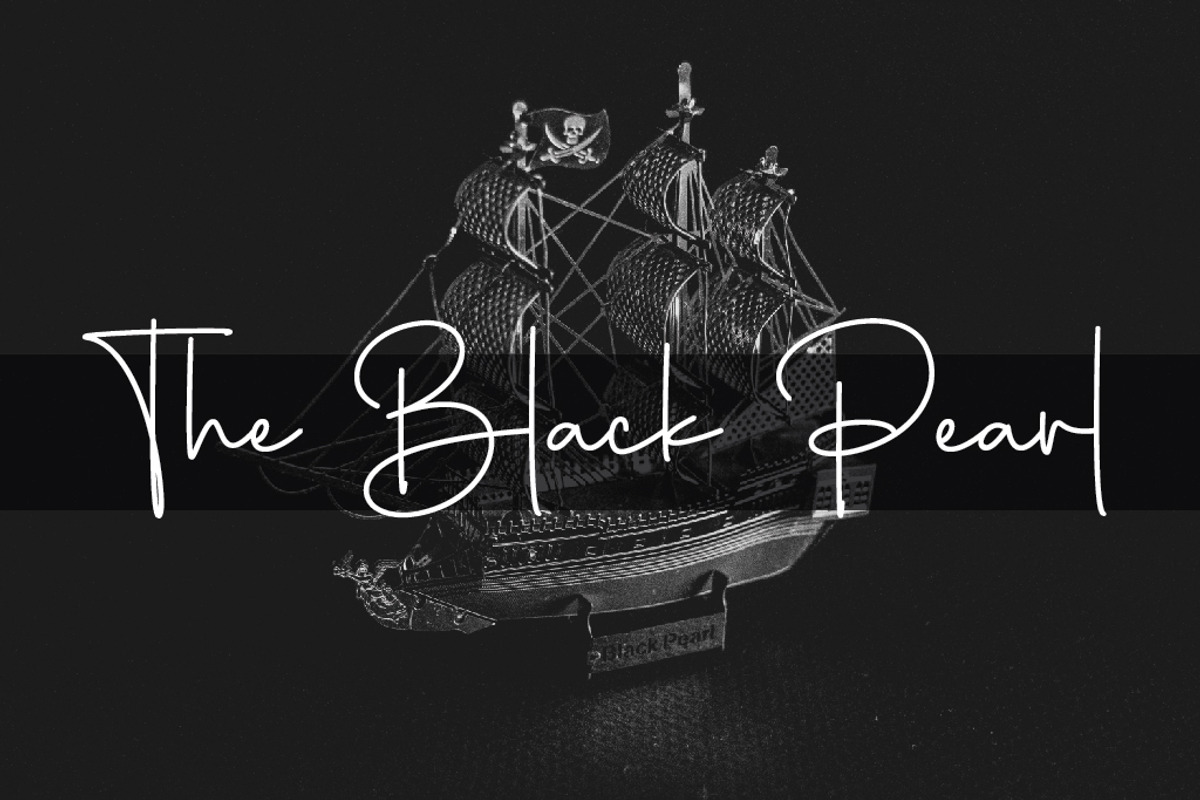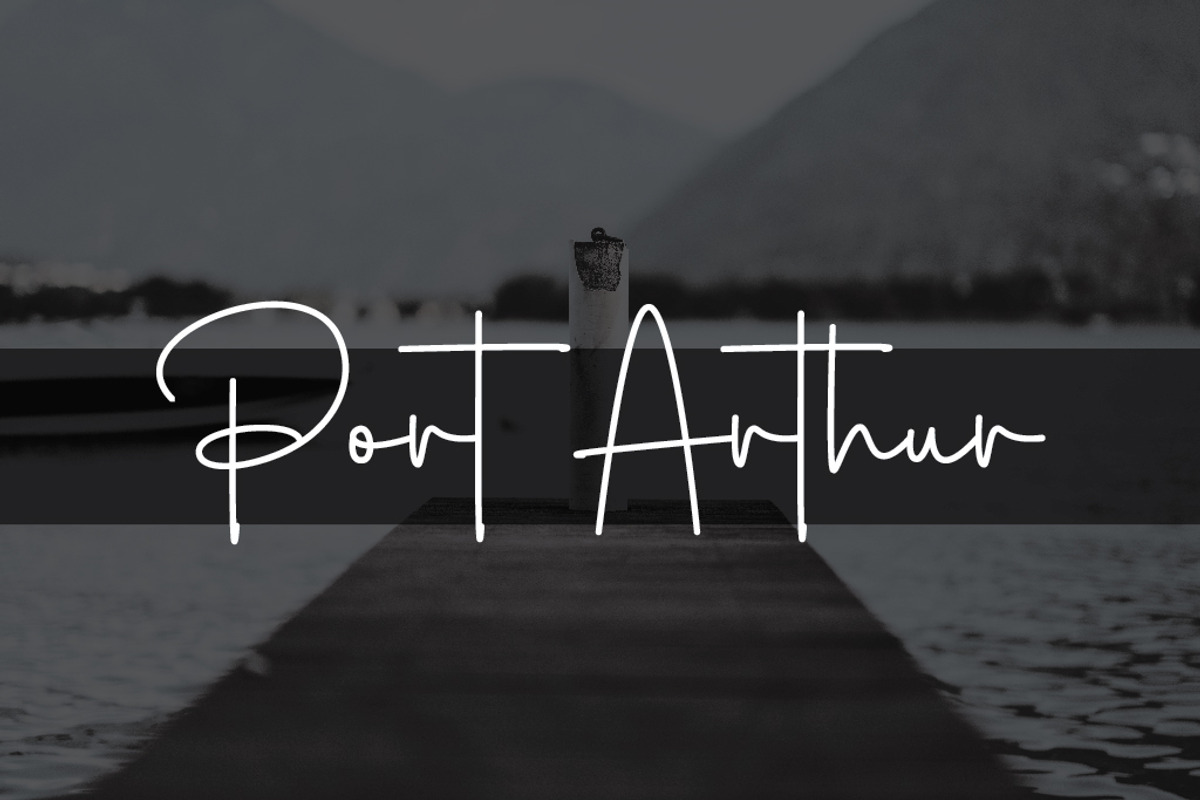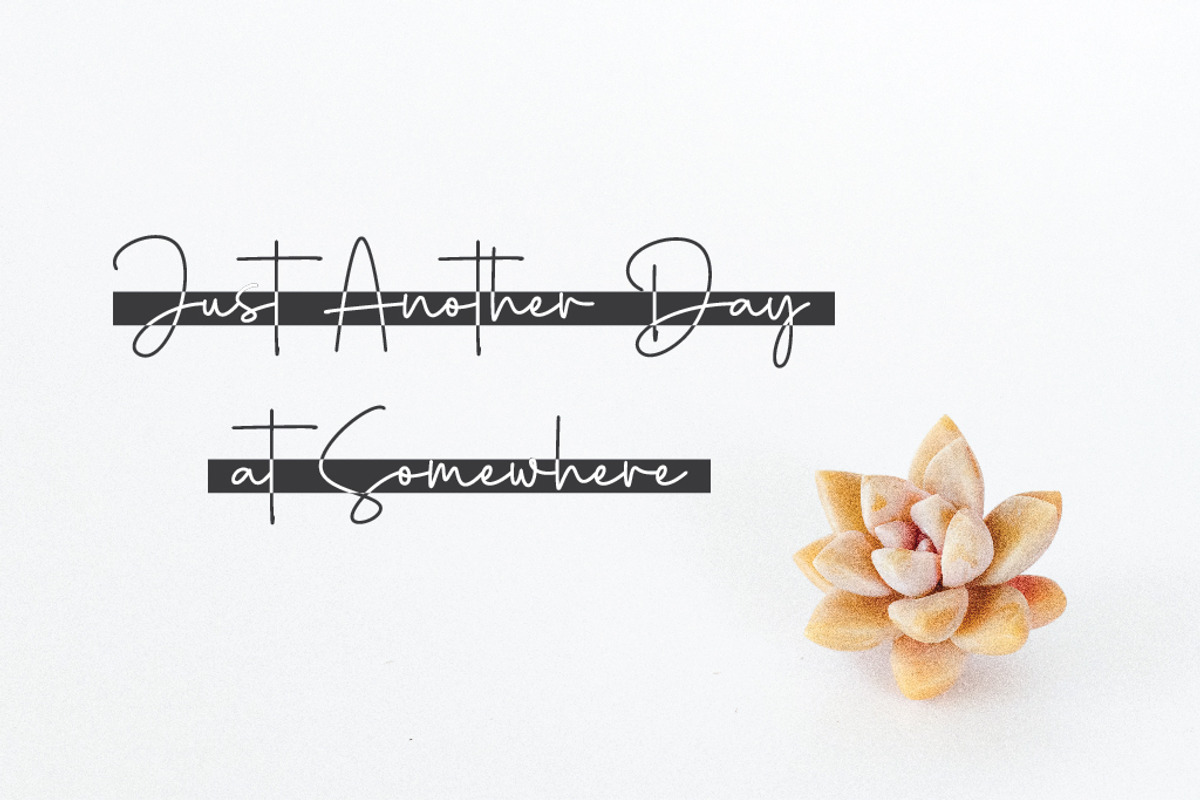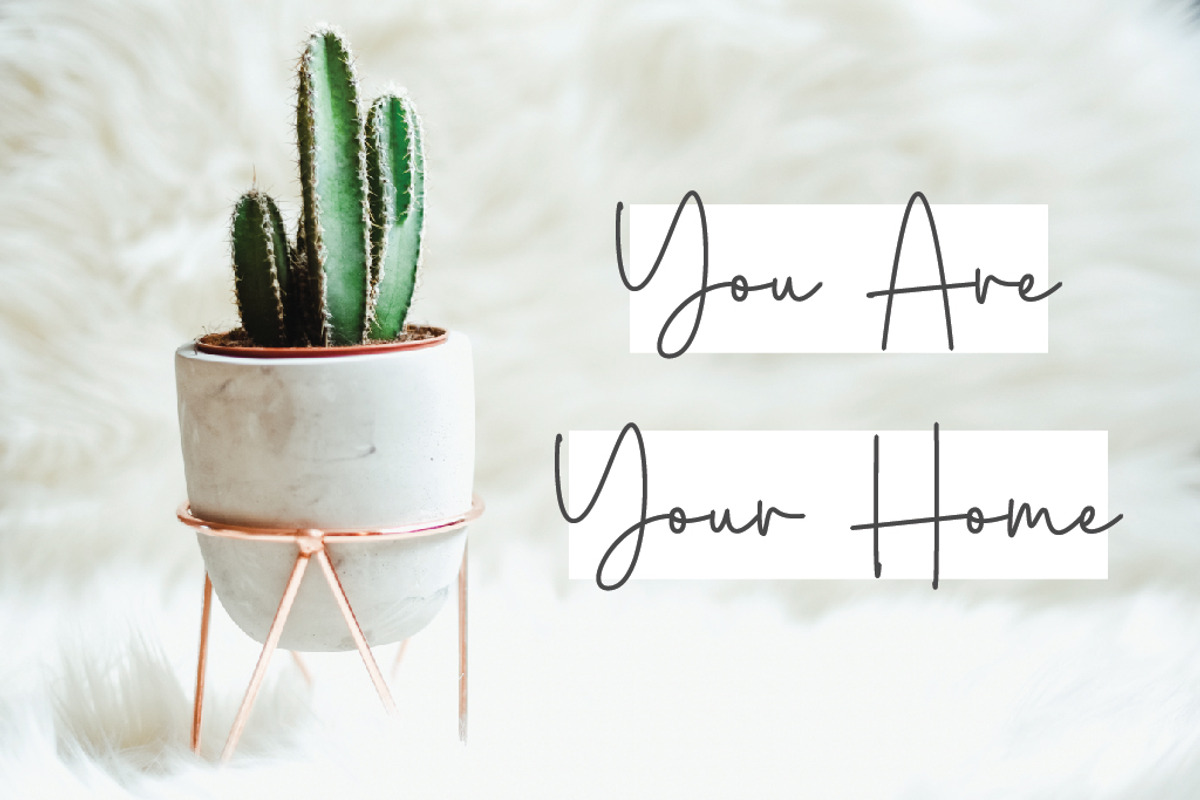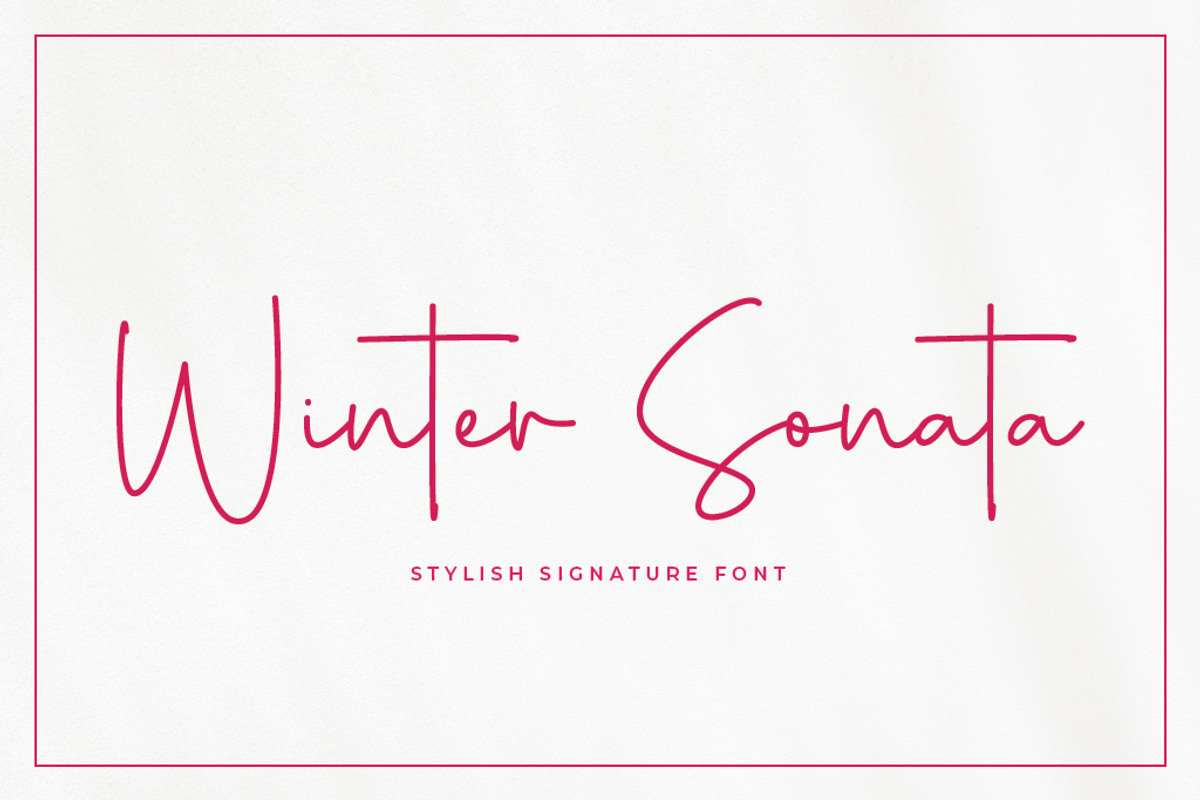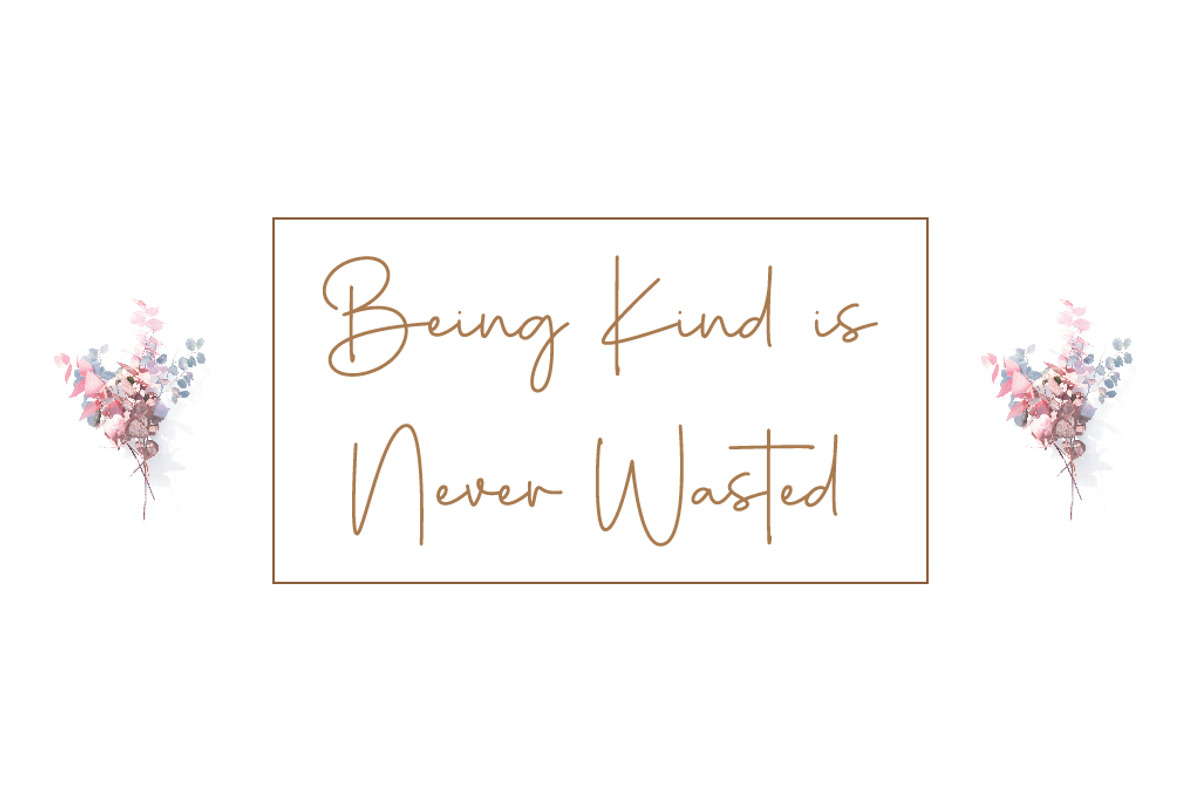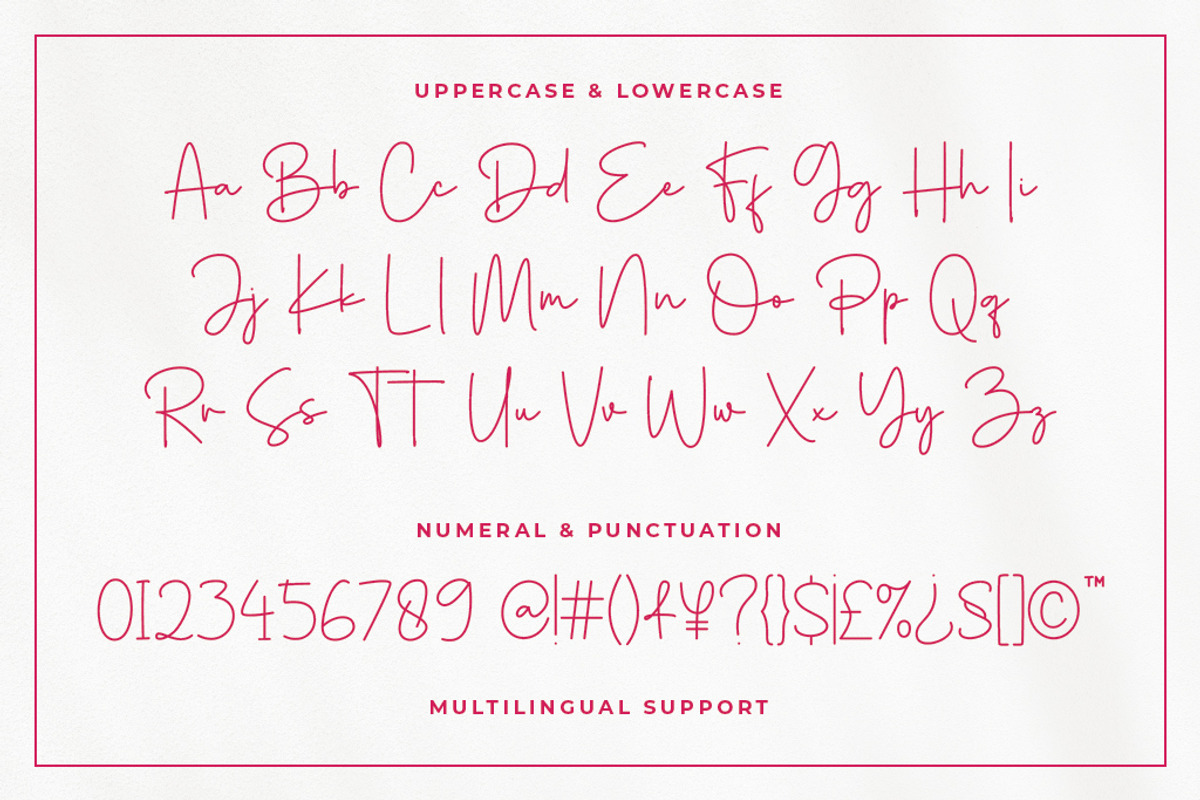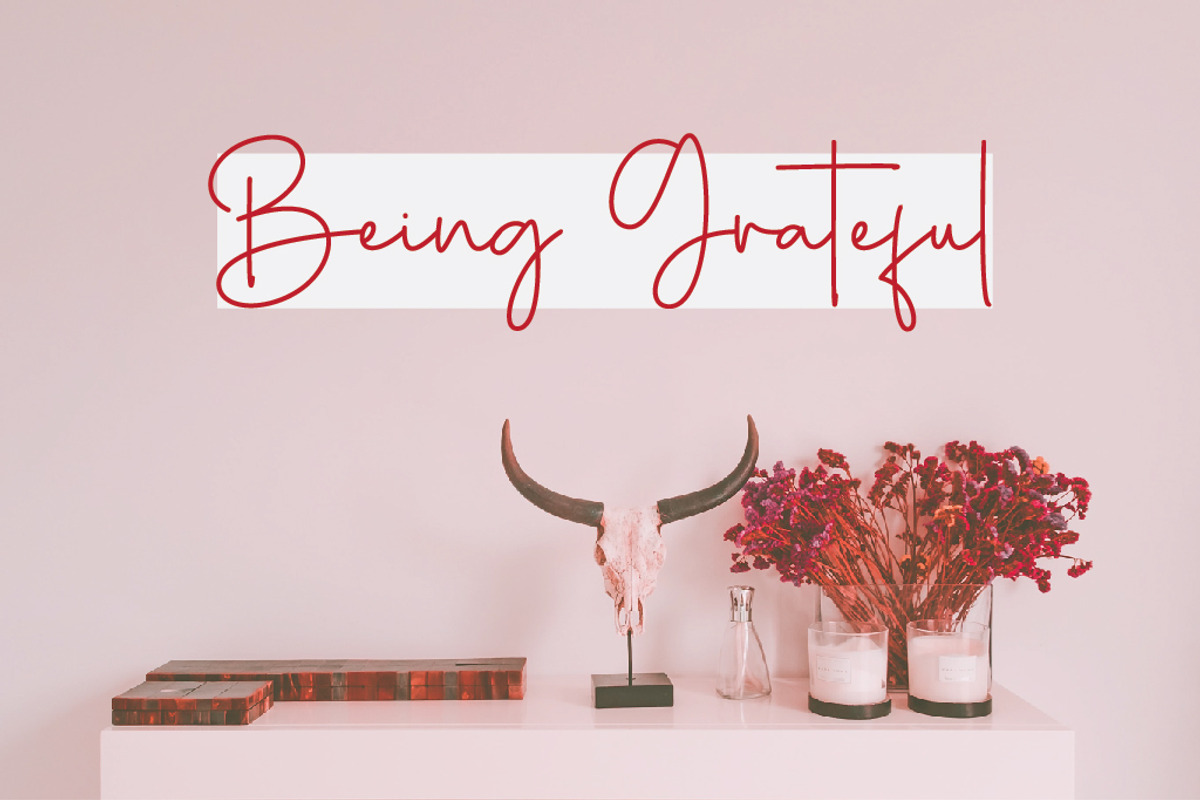
Winter Sonata Font
Winter Sonata is a simple and modern signature font with a touch of elegance. Winter Sonata matches any design by adding a touch of luxury and minimalism. Winter Sonata is compatible with many tools, such as Illustrator and Photoshop and supports multilingual features. Its smooth strokes make it perfect for product design, such as branding for pastry shops, jewelry, clothing, restaurants, print templates, or anything else to communicate your brand.